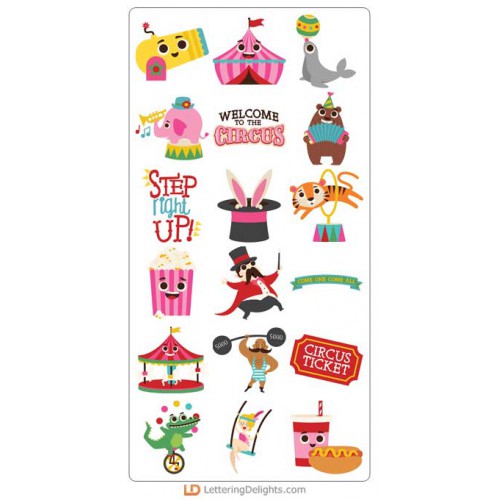
1. Jolly Circus - Big Bundle
This adorable collection features fun circus characters, clowns and elements perfect for cards, crafts, gifts, parties, classrooms, scrap book pages, planner stickers and more!
DB Jolly Circus - DB
This adorable doodlebat font features 26 fun circus characters and elements perfect for cards, craft..
DB Jolly Circus - Clowns - DB
This adorable doodlebat font features 26 fun circus clowns perfect for cards, crafts, gifts, parties..
DB Jolly Circus - Props - DB
This adorable doodlebat font features 26 fun circus photo props perfect for cards, crafts, gifts, pa..
Jolly Circus - GS
This adorable graphic set features 26 fun circus characters and elements perfect for cards, crafts, ..
Jolly Circus - CS
This adorable cuttable graphic set features 26 fun circus characters and elements perfect for cards,..
Jolly Circus - Clowns - GS
This adorable graphic set features 26 fun circus clowns perfect for cards, crafts, gifts, parties, c..
Jolly Circus - Clowns - CS
This adorable cuttable graphic set features 26 fun circus clowns perfect for cards, crafts, gifts, p..
Jolly Circus - Photo Props - CP
This adorable cut project features 26 fun circus photo props perfect for cards, crafts, gifts, parti..
Jolly Circus - PP
This fun paper pack coordinates with our Jolly Circus Collection...
Jolly Circus - AL
This fun alphabet coordinates with our Jolly Circus Collection...